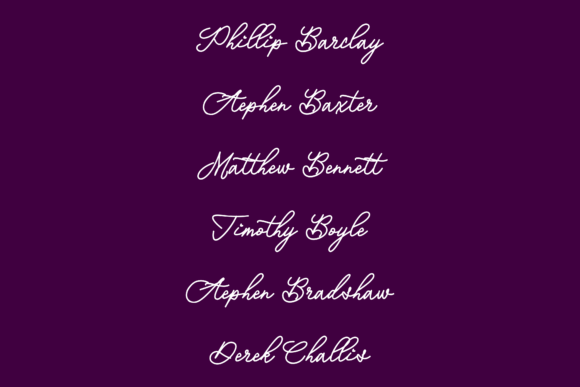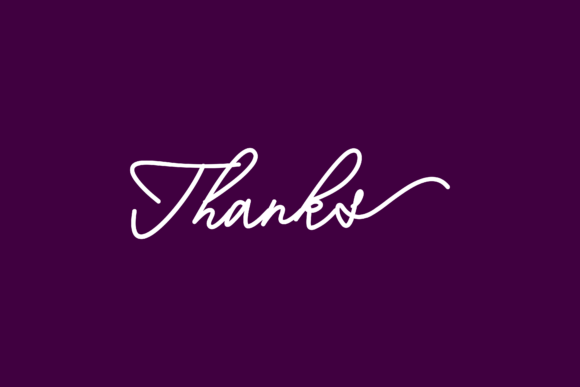
Introducing the Carlington Font: Elevate Your Designs with Elegance and Charm
I’ll never forget the moment I stumbled upon the perfect font for a wedding invitation project. I was working late, surrounded by design mockups and sipping cold coffee, when I finally found Carlington Font. It was as if the design gods had smiled upon me! The elegant lines, the flowing script, and the undeniable charm had me hooked. In this article, I’ll share my journey with Carlington Font, its features, and how you can make the most of it in your designs.
A Personal Design Moment: Finding the Perfect Font
As designers, we’ve all been there – scrolling through font libraries, searching for that one perfect typeface that will make our project stand out. For me, it was a wedding invitation project that required a font that exuded elegance and sophistication. I tried several fonts, but none seemed to fit the bill. That was until I discovered Carlington Font. Its unique blend of high-end fashion and handcrafted script captivated me, and I knew I had found the one.
What I Love About Carlington Font
- ✨ Elegant and Refined: Carlington Font boasts a sleek and sophisticated design, perfect for high-end projects.
- ✅ Handcrafted Feel: The font’s script style evokes the romantic elegance of hand-drawn calligraphy.
- 💫 Endless Design Possibilities: With PUA encoding, you’ll have access to a wide range of delightful symbols and creative curves.
- 📝 Versatile: Use it for wedding invitations, thank you messages, motivational texts, greetings, and more.
Honest Review: The Not-So-Perfect Aspects
While Carlington Font is an exceptional typeface, there are a few minor quirks to be aware of:
- 🤔 Limited Use in Body Text: Due to its script nature, Carlington Font may not be the best choice for lengthy body text.
- ⚠️ Requires Some Practice to Master: To get the most out of Carlington Font’s features, you’ll need to familiarize yourself with OpenType features and glyphs.
The Story Behind Carlington Font
Carlington Font was designed with the intention of capturing the essence of high-end fashion and handcrafted script. The designer aimed to create a typeface that would evoke the romantic elegance of calligraphy, while still being versatile and easy to use. The result is a font that is both refined and charming, perfect for a wide range of design projects.
| What is Carlington Font? | Carlington Font is a script typeface that blends high-end fashion with handcrafted elegance. |
| Is Carlington Font suitable for body text? | While Carlington Font is beautiful, it’s not ideal for lengthy body text due to its script nature. |